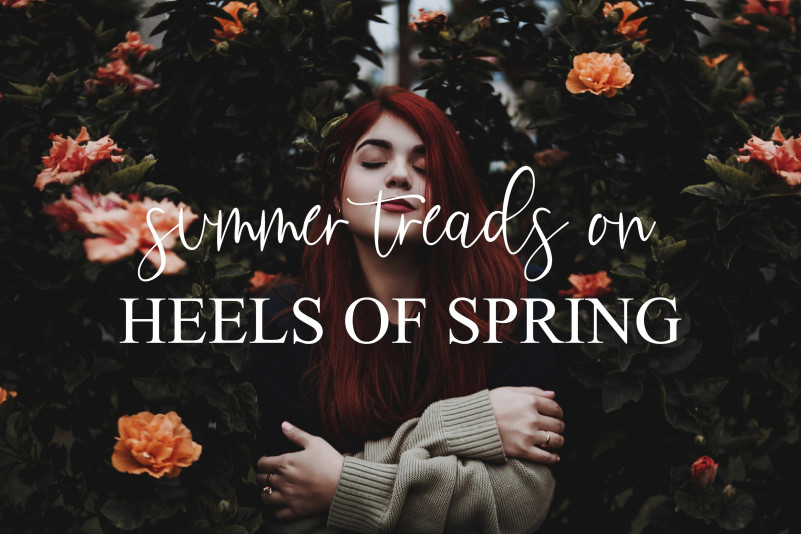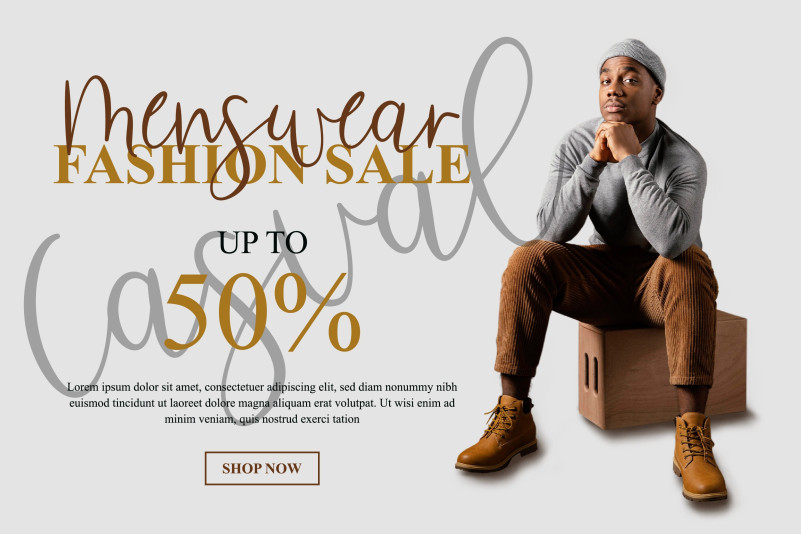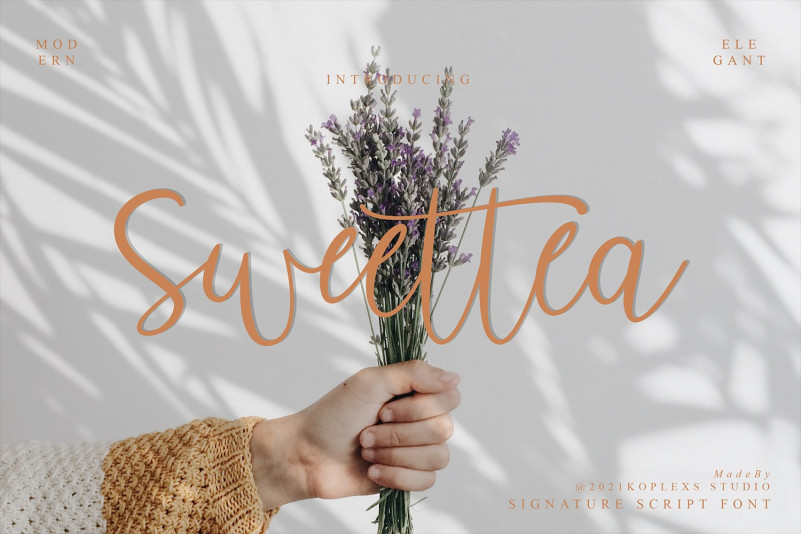
Sweettea Font
Sweettea Script Font is a Signature Script Font with a modern calligraphy feel.
Sweettea is perfect for branding projects, logos, wedding designs, social media posts, advertisements, product packaging, product designs, labels, photography, watermarks, invitations, stationery, and any project that requires a sense of handwritten-signature and more!.